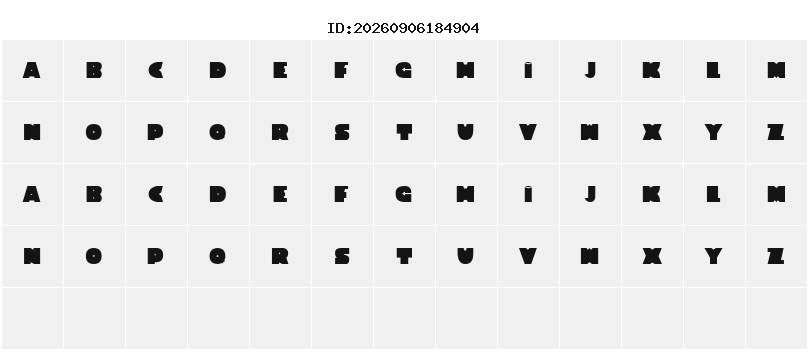
TH!CK B!TCH Preview
• Font Name: TH!CK B!TCH
• Full Font Name: TH!CK B!TCH
• Version: Version 1.00 August 18, 2012, initial release
About TH!CK B!TCH.ttf
TH!CK B!TCH.ttf is a modern, elegant sans-serif font designed for ultimate readability and visual harmony. Perfect for branding, headlines, web design, and print materials.